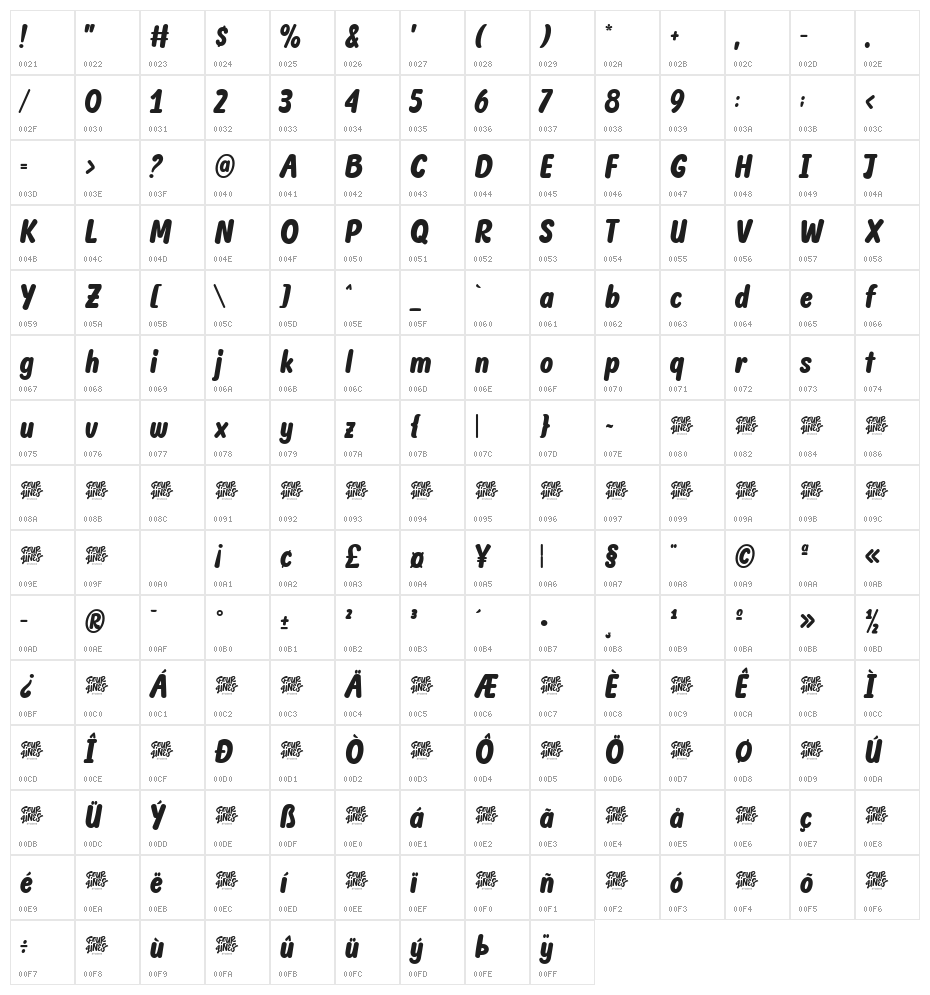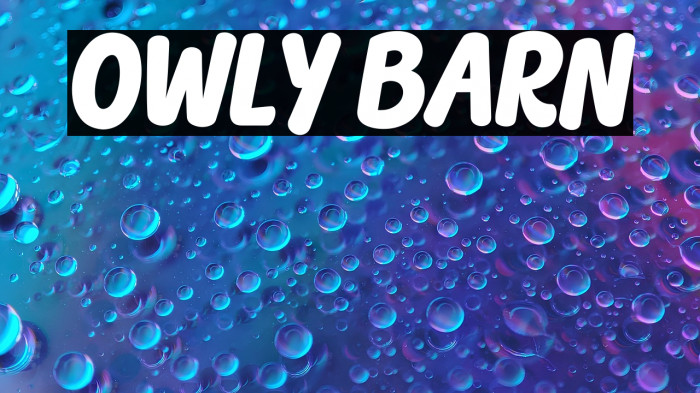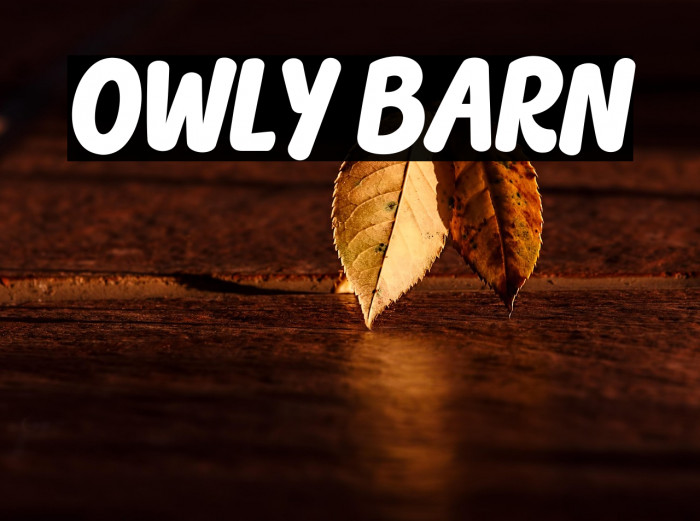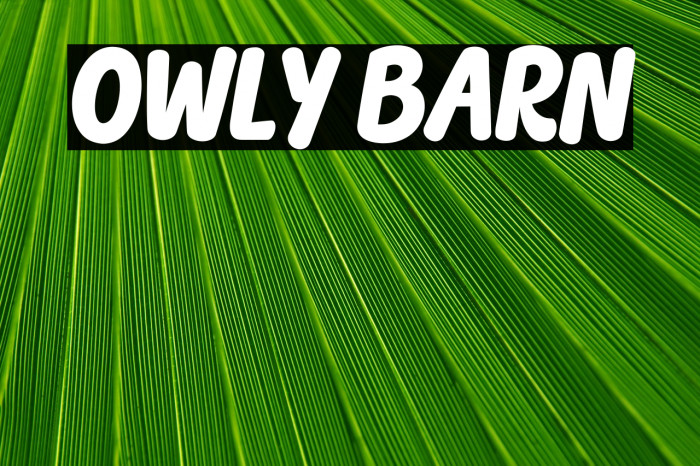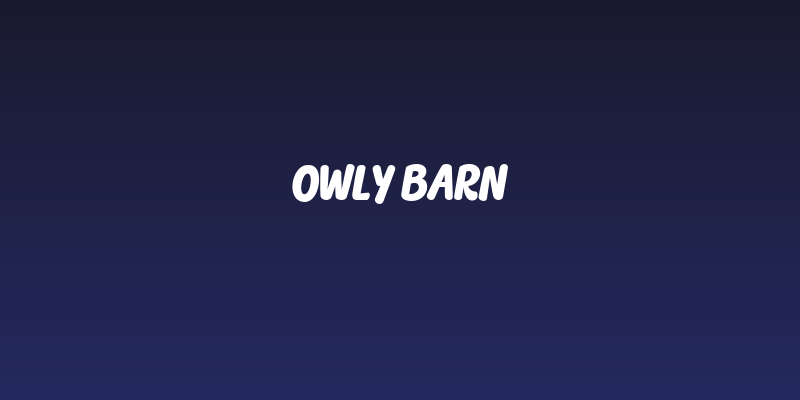
OWLY BARN Font
OWLY BARN Description
This font features a bold and playful style with rounded edges and a slightly condensed appearance. The characters are thick and uniform, providing a strong visual impact. The uppercase and lowercase letters maintain a consistent style, with smooth curves and a friendly demeanor. The numerals are equally bold, ensuring readability and coherence with the alphabet. Special characters are designed to match the overall aesthetic, making this font versatile for various uses. Its boldness and rounded shapes convey a sense of approachability and fun.
| Proposed Projects | Ideal for children's books, playful branding, posters, and casual invitations. |